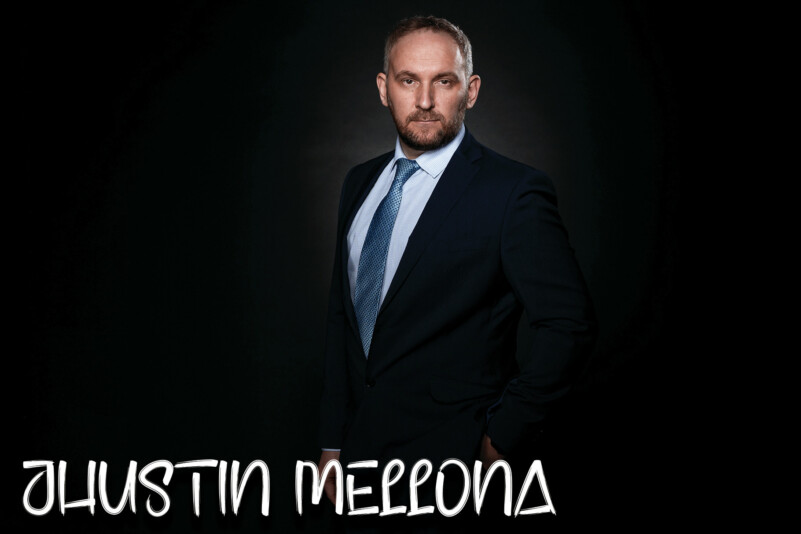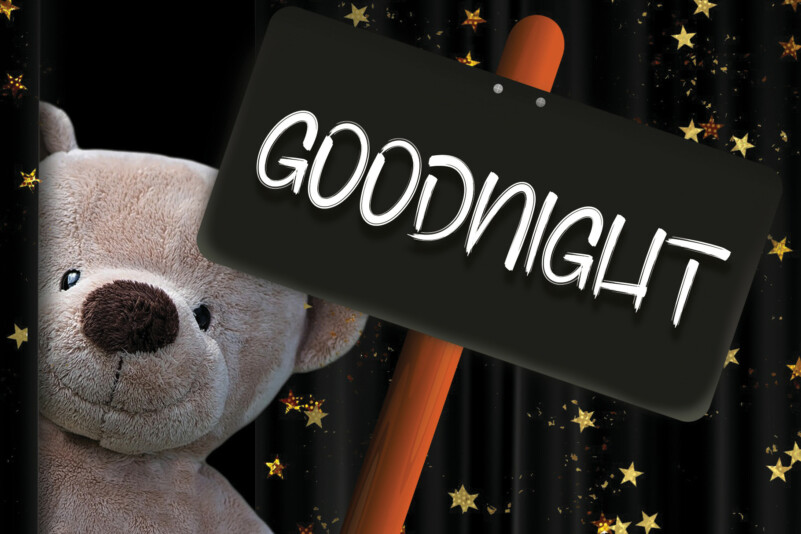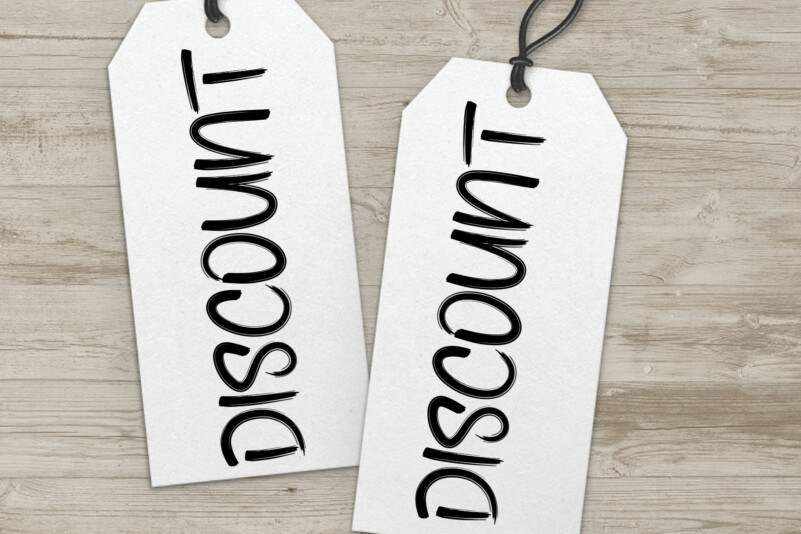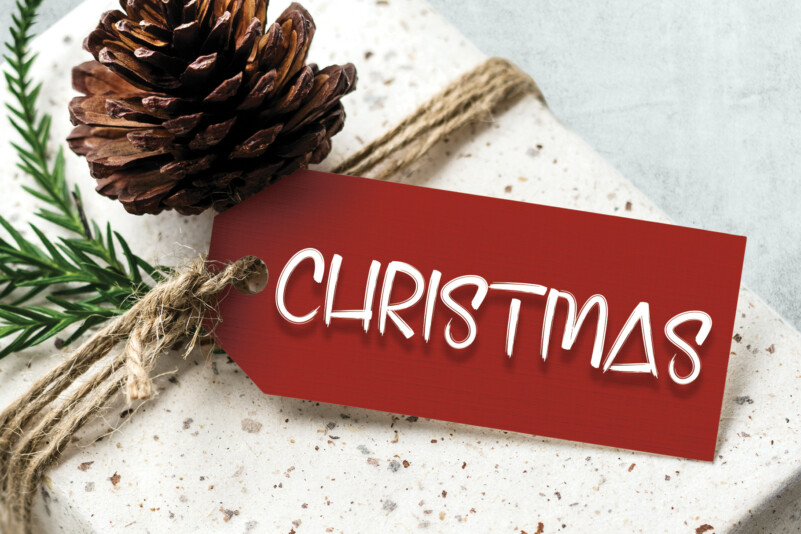
Handle Display Font
Handle Display Font is a lovely handwritten font with a modern look. Its latest style letters are perfect for wall displays, wedding invitations, social media post logos, advertisements, product packaging, product designs, labels, photography, watermarks, invitations, stationery, and any project that requires handwritten taste.